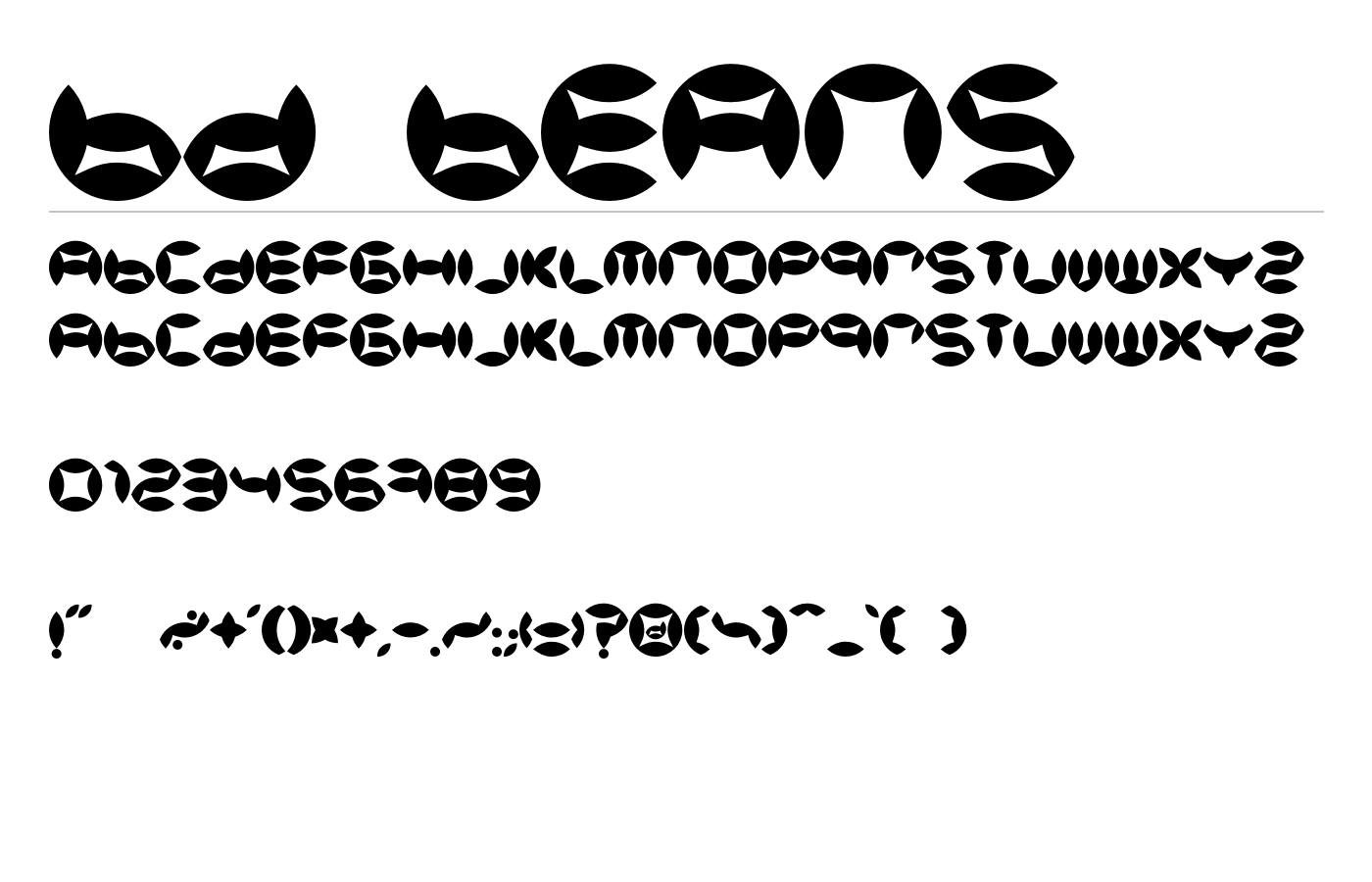
BD Beans is a bold, decorative display font characterized by heavy, rounded shapes and playful cut-outs that create a unique, organic feel. Its thick strokes and distinctive, bean-like forms make it ideal for eye-catching headlines, logos, or creative projects seeking a fun and quirky vibe. This font works particularly well in branding or packaging where a lively, unconventional style is desired.
About BD Beans Font